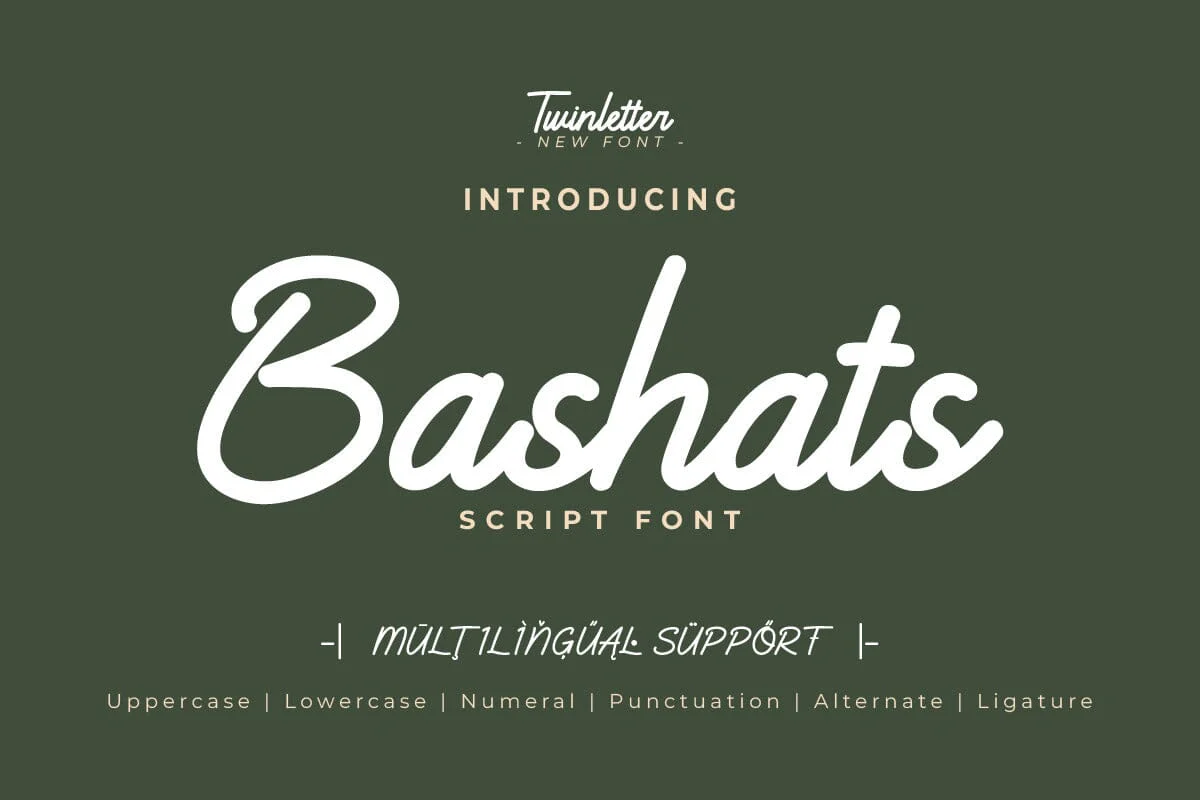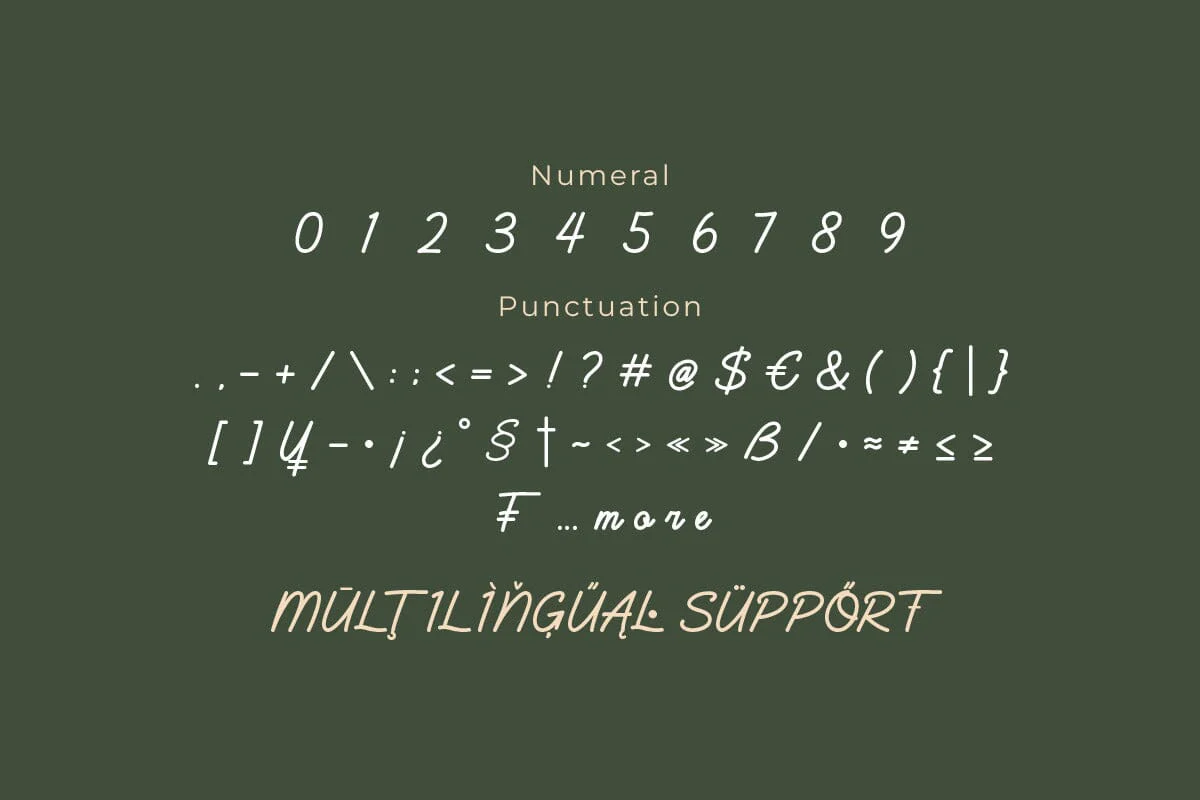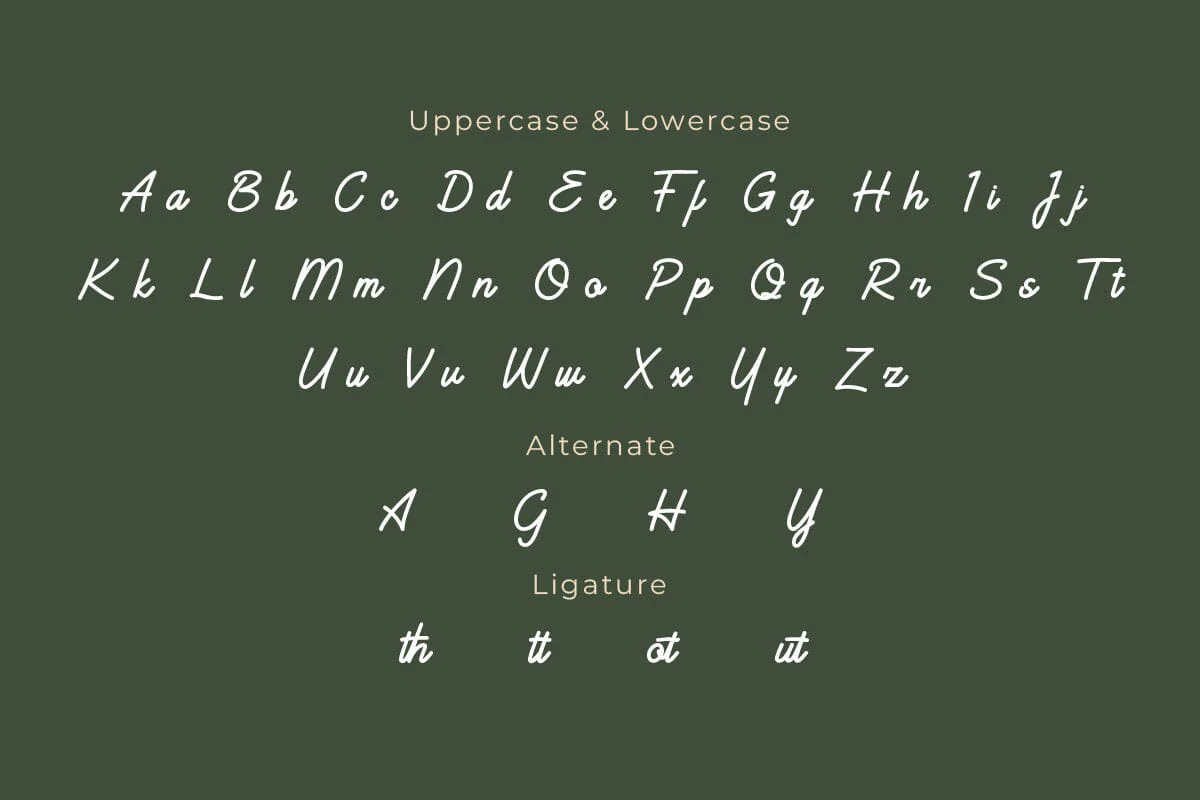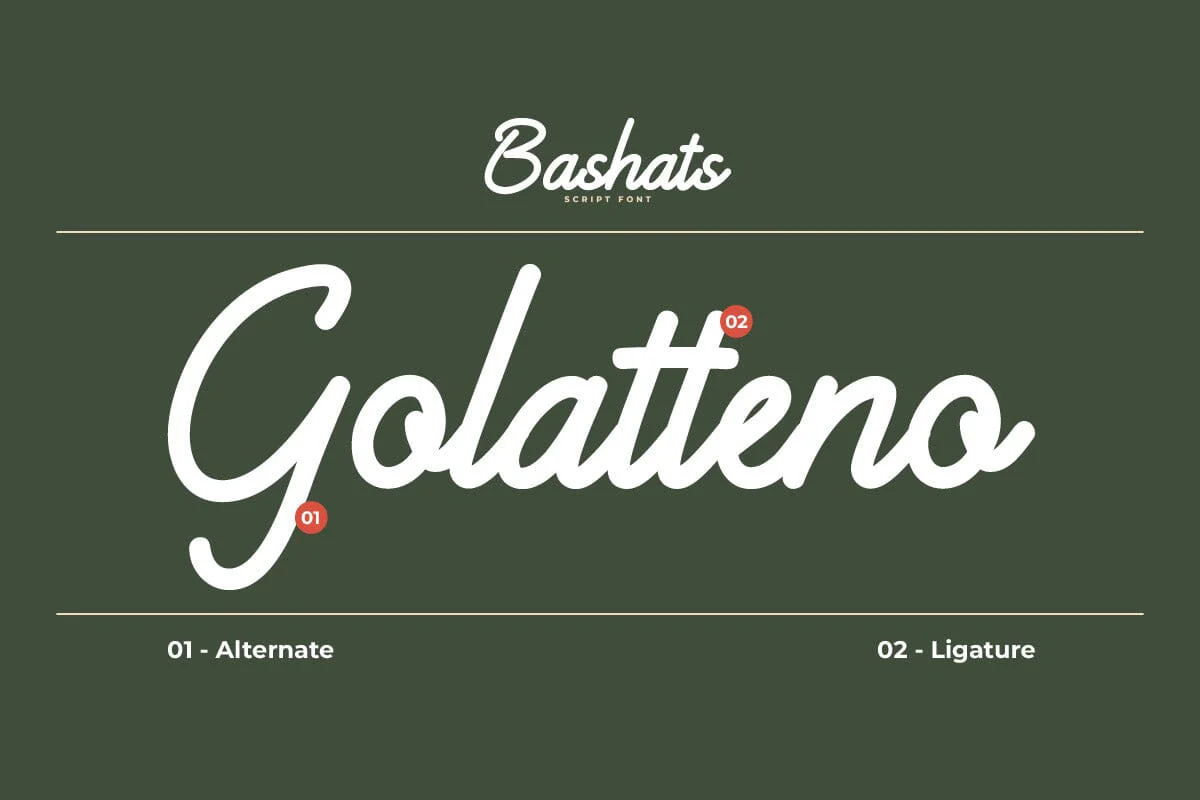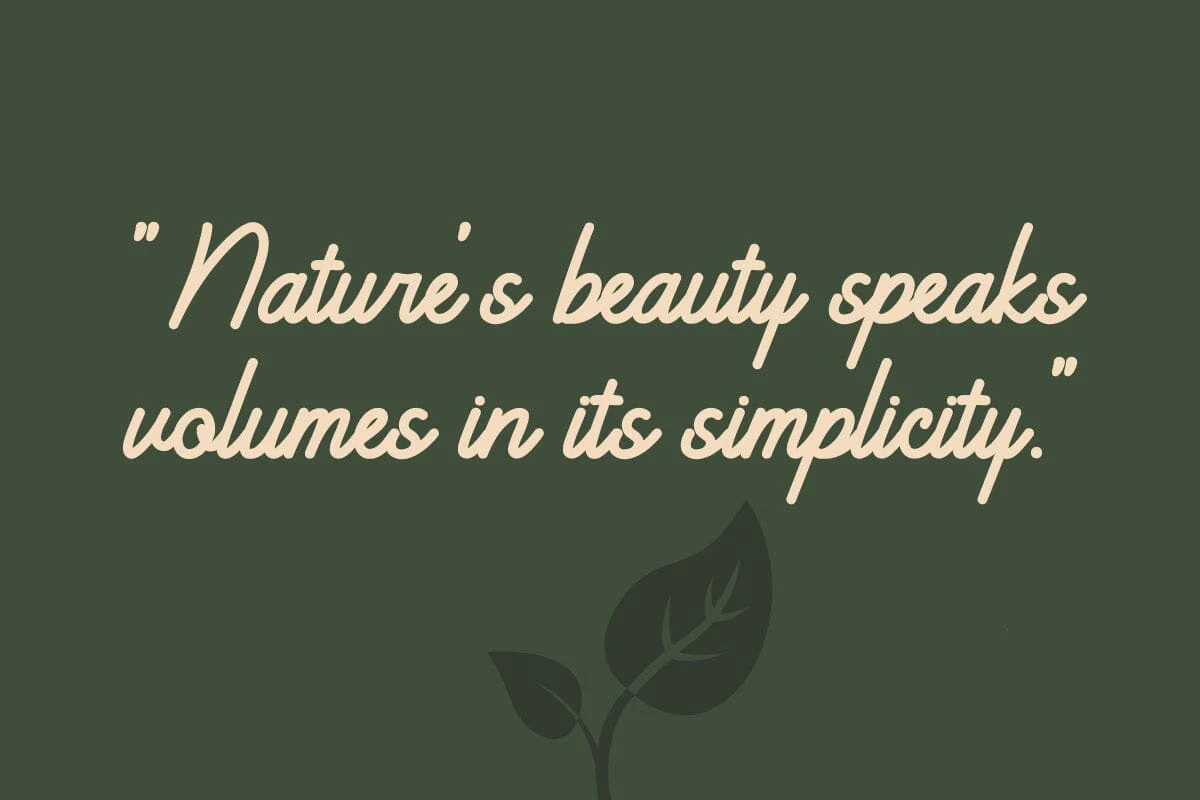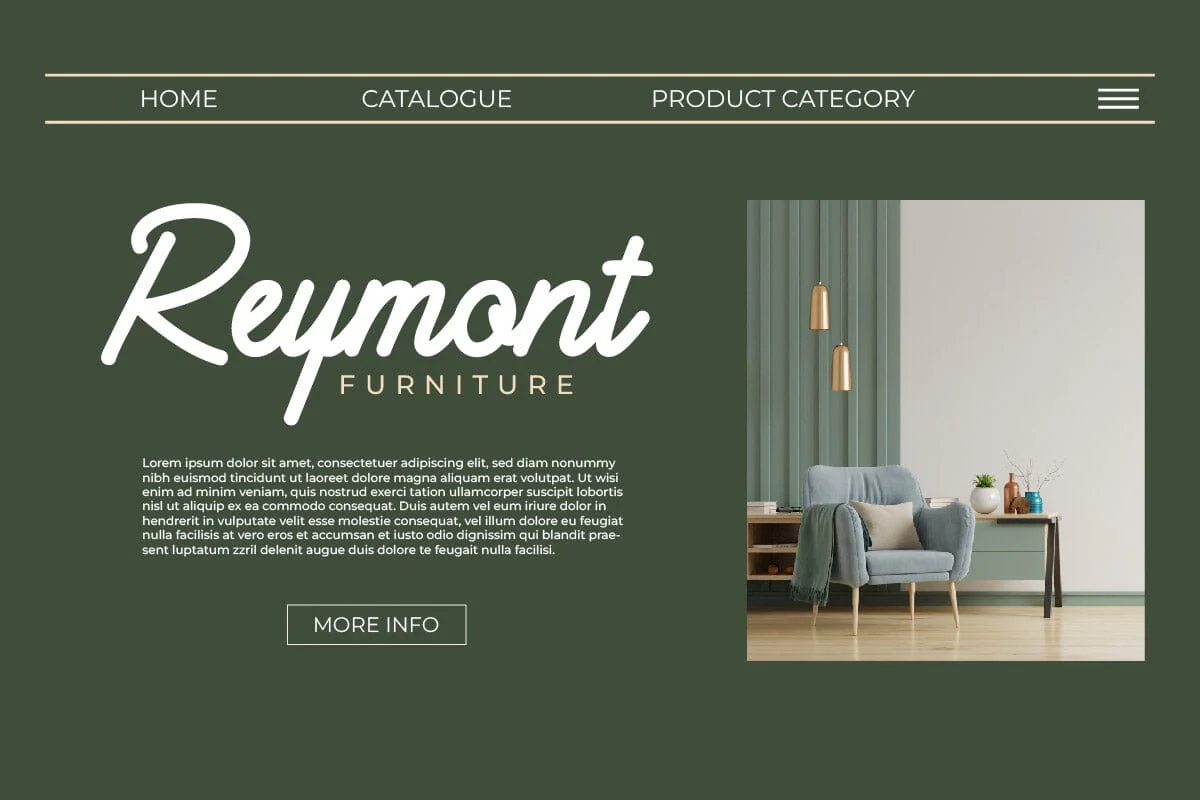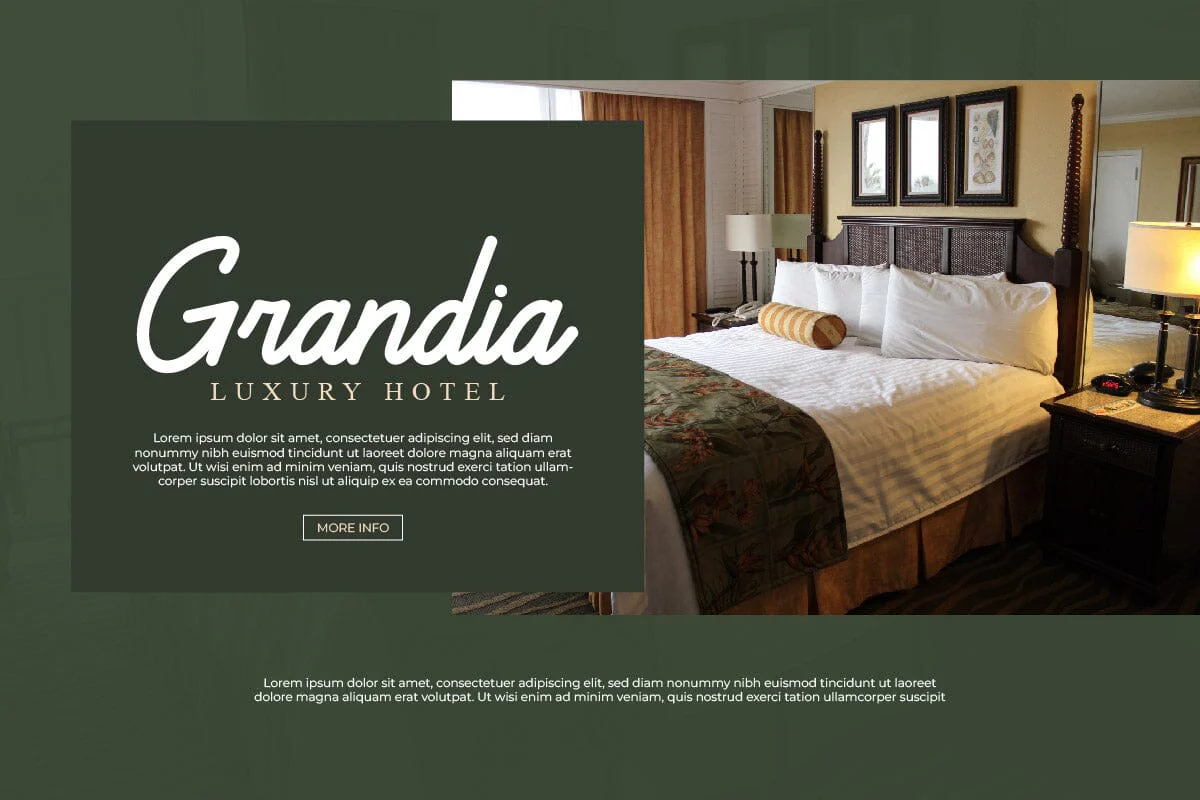
Bashats - Script Monoline Font
Bashats is a script monoline font that combines simplicity with style. Its clean, smooth lines make it perfect for minimalist designs, while its unique characters add a touch of creativity. Whether you’re designing a logo for a modern brand or creating a stylish headline, Bashats is the perfect choice. It’s not just a font, it’s a statement of style. Bashats is the embodiment of modern minimalism, perfect for those who appreciate simplicity but still want their designs to stand out.